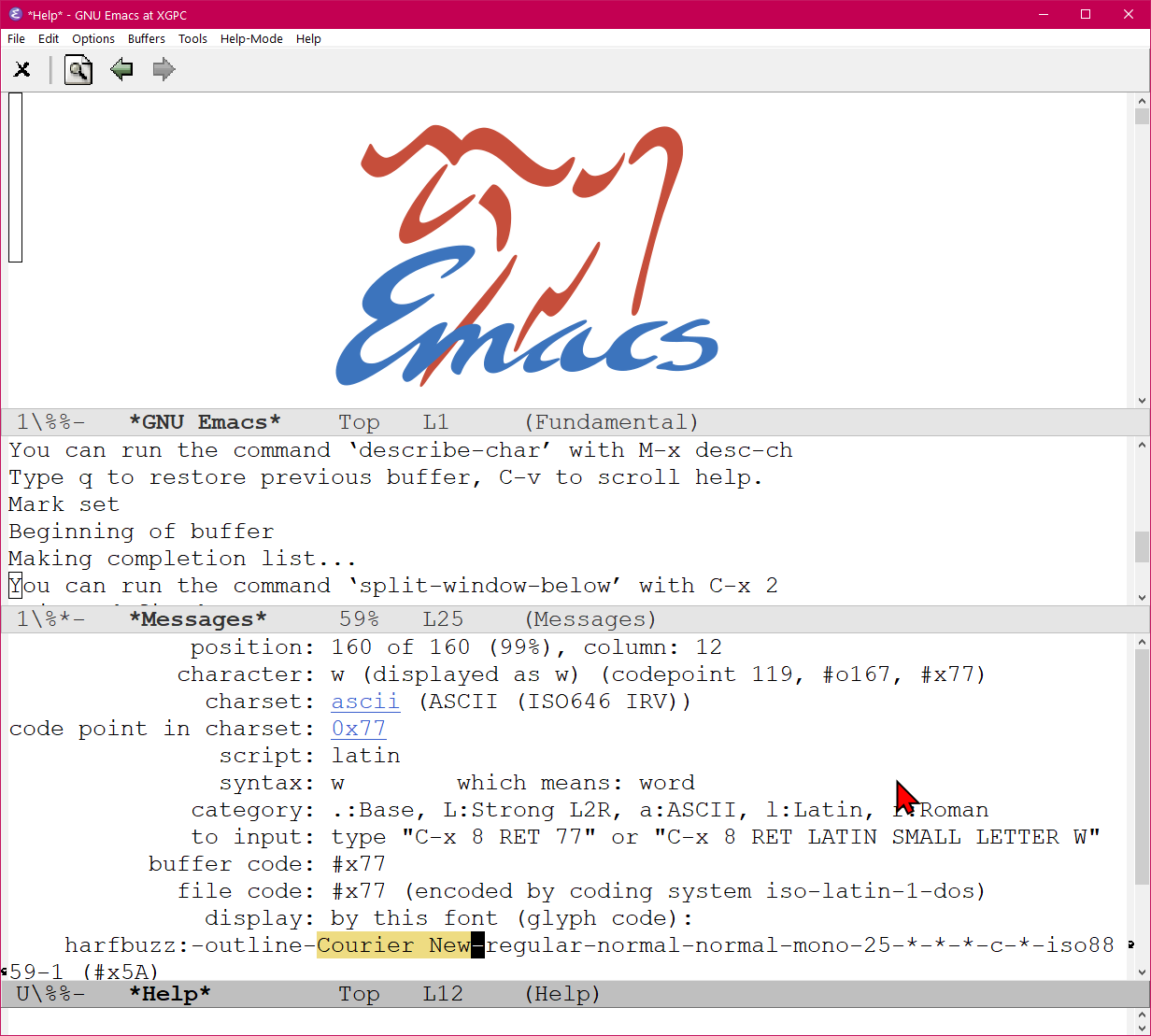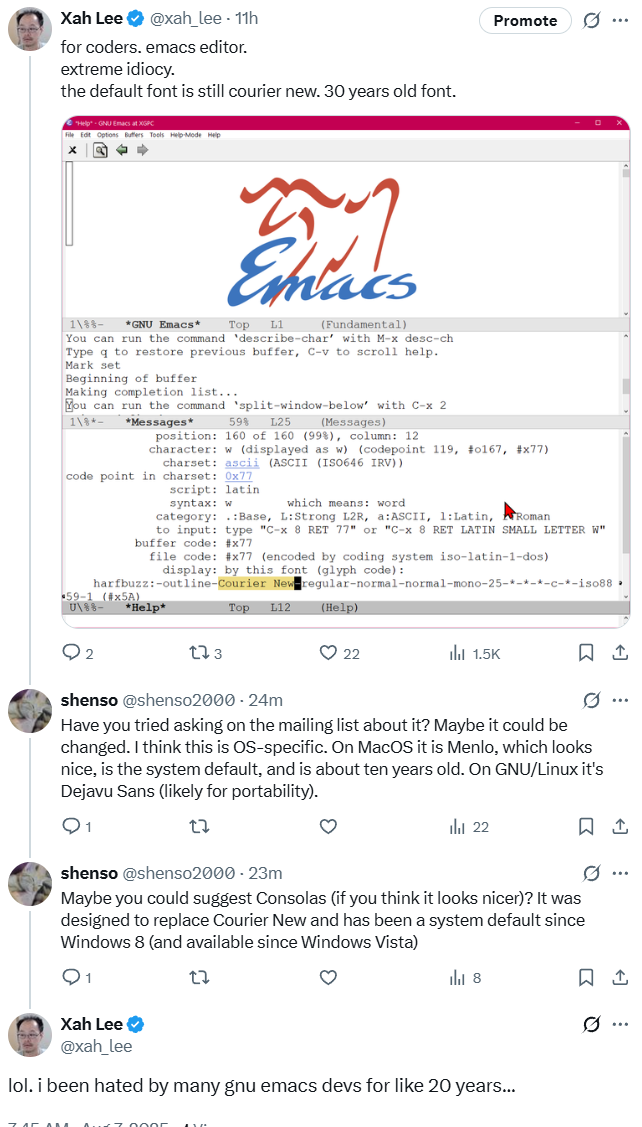
Emacs: Default Font is Still Courier New. 30 Years Old Font (2025)
emacs courier new font
for coders. emacs editor.
extreme idiocy.
the default font is still courier new. 30 years old font.